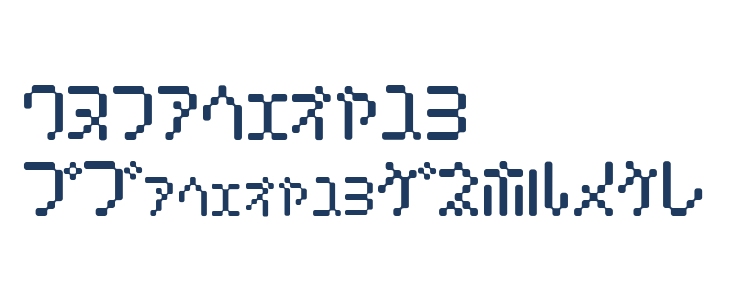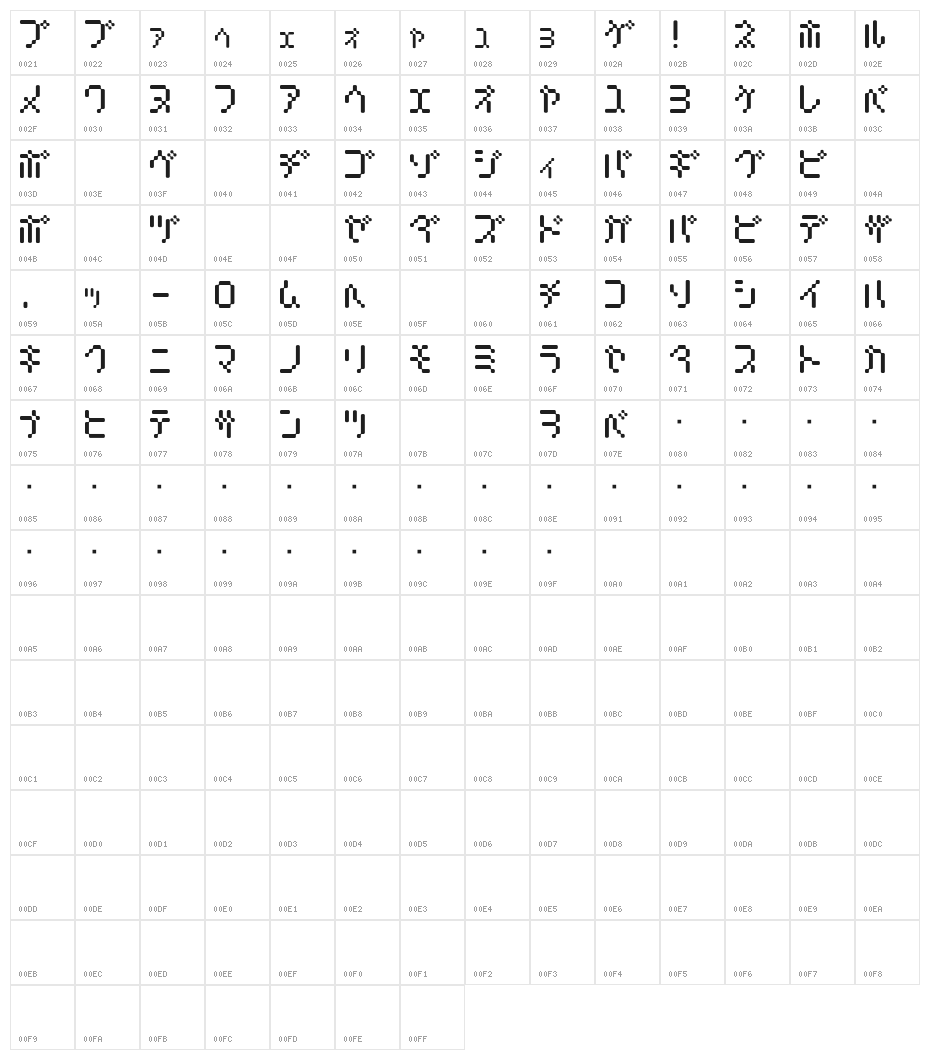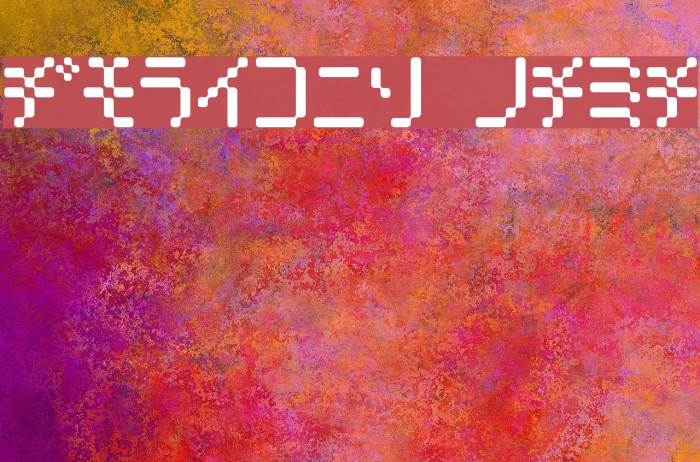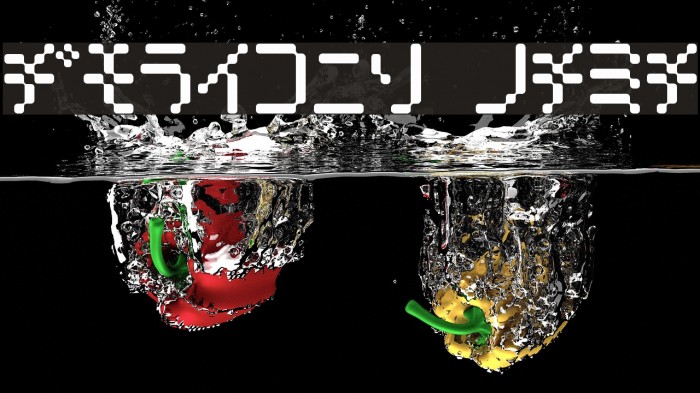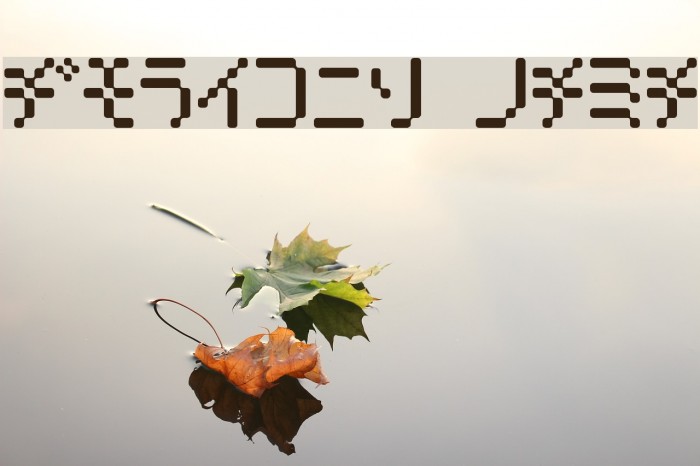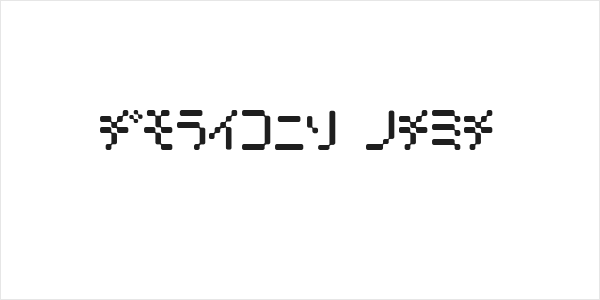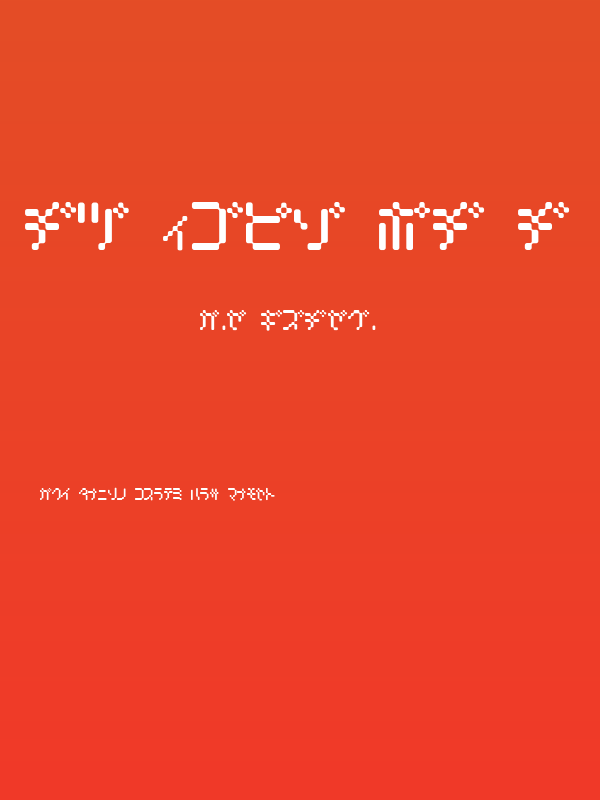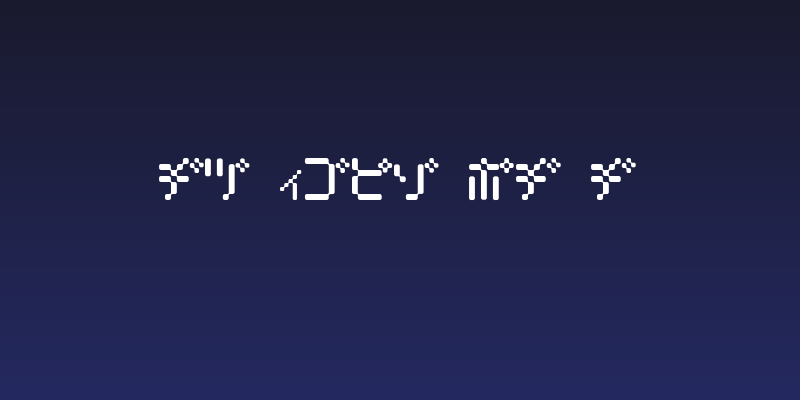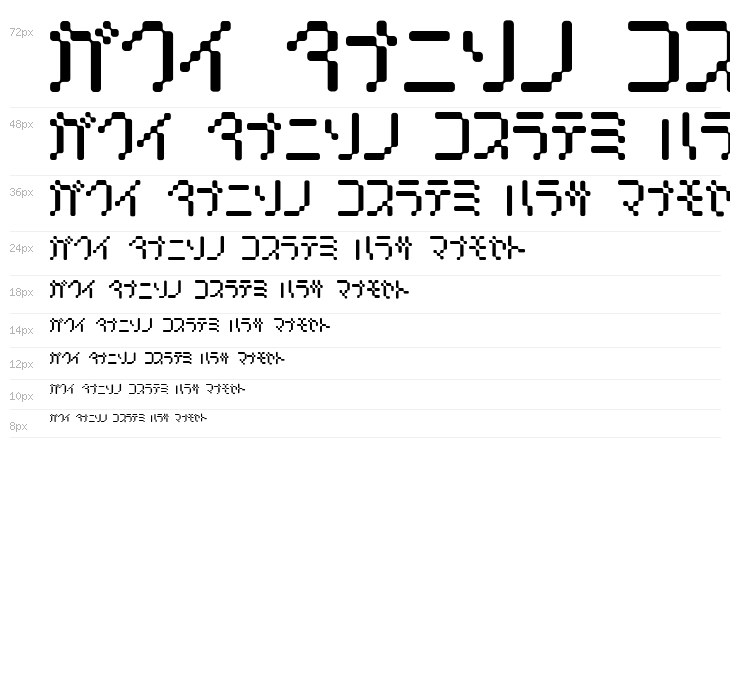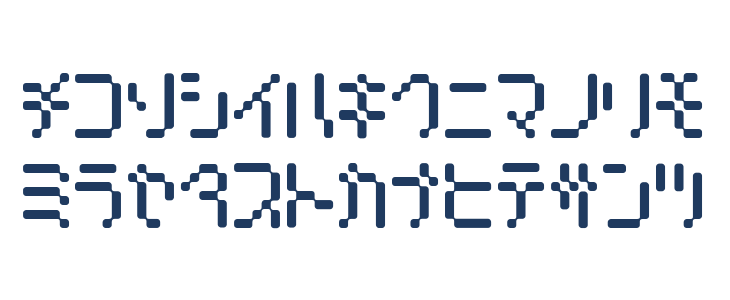
Amoebic kana Font
Amoebic kana Description
This font features a unique, amoebic style with rounded, blob-like shapes that form each character. The design is highly decorative, with a playful and organic feel, reminiscent of cellular structures or digital pixel art. Each character is composed of small, rounded segments that connect to create the overall letterform, giving it a distinct and unconventional appearance. The font's style is bold and eye-catching, making it suitable for creative and artistic projects. It is not suitable for body text due to its intricate design but excels in display settings where its quirky and modern aesthetic can shine.
| Proposed Projects | Ideal for creative projects, digital art, posters, and any design requiring a unique, modern touch. |